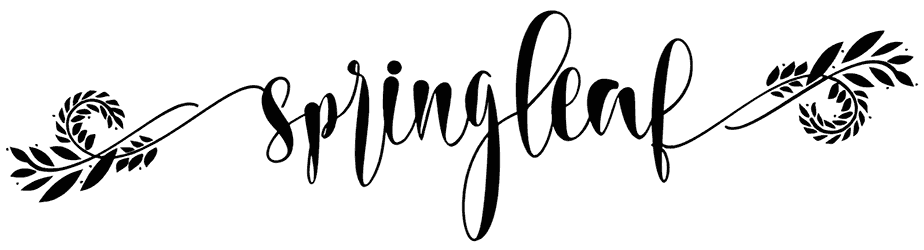
Springleaf Font
Choosing the proper font for a new design may appear difficult, but the truth is quite different. Today, RB is here to put your writing in the expansion zone by merely using a feminine tattoo font. Springleaf is perfect for transforming your ideas into exciting works of art.